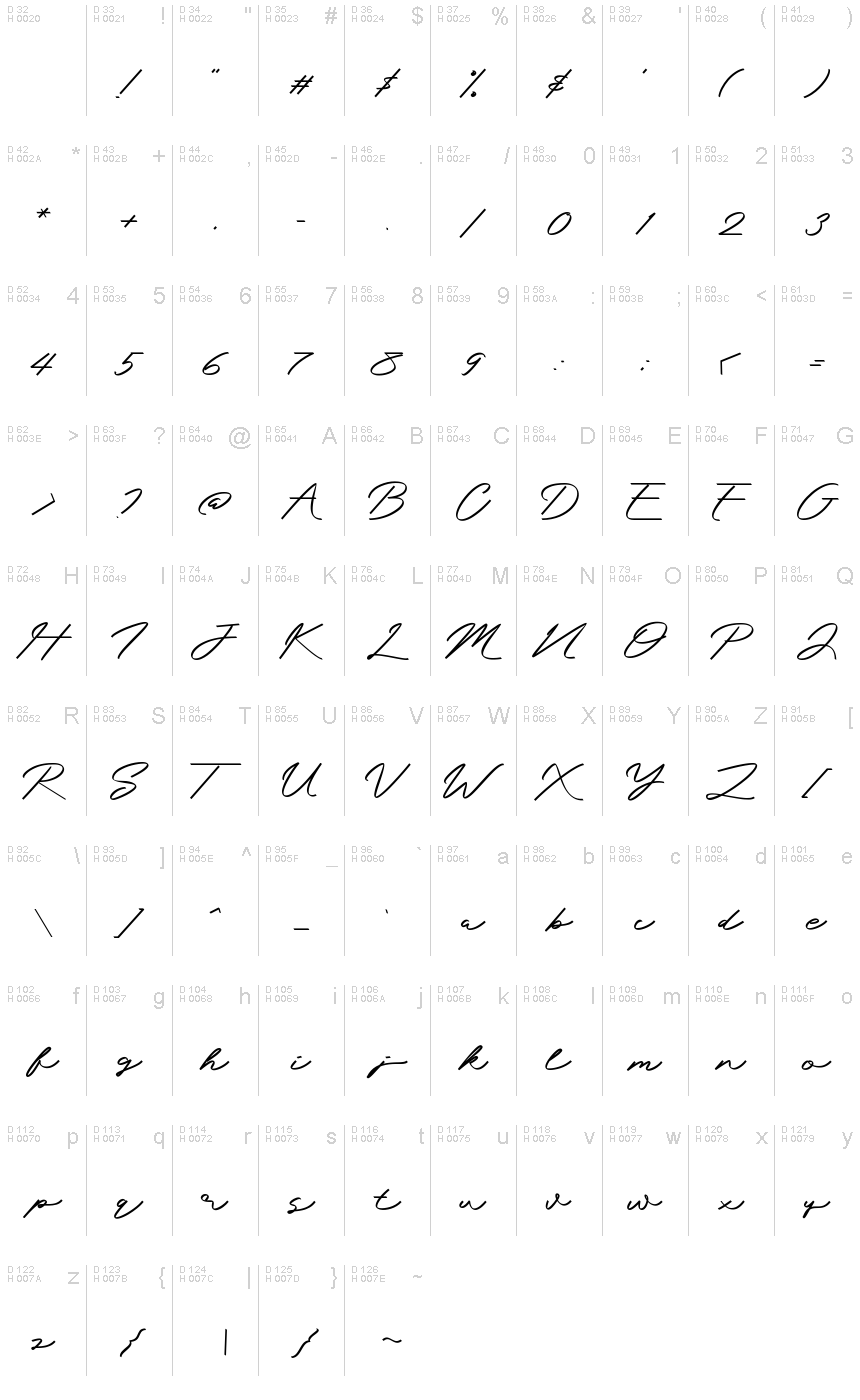
Mengkengs
Mengkengs is a captivating handwritten font that exudes a sense of effortless elegance and artistic flair. Crafted by Selawetype, this font seamlessly blends organic fluidity with refined precision, creating a distinctive visual language that immediately commands attention.
The dynamic interplay of thick and thin strokes, coupled with the subtle variations in letter shapes, lends Mengkengs a remarkable depth and character. This font's versatility shines through, lending itself beautifully to a wide range of design applications, from editorial layouts and branding materials to intimate stationery and personalized invitations.
Mengkengs effortlessly bridges the gap between the formal and the informal, making it a versatile choice for those seeking to infuse their designs with a touch of authentic, handcrafted charm.